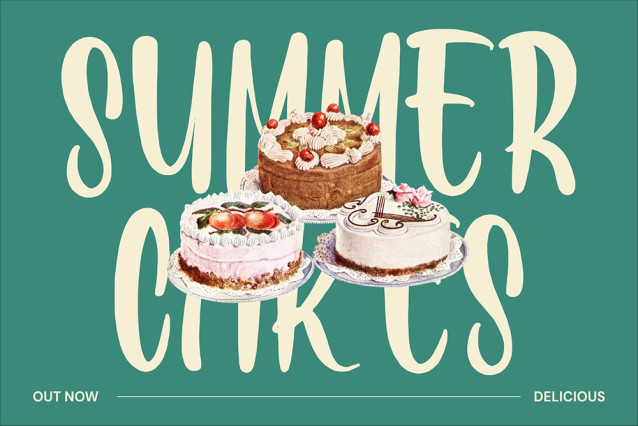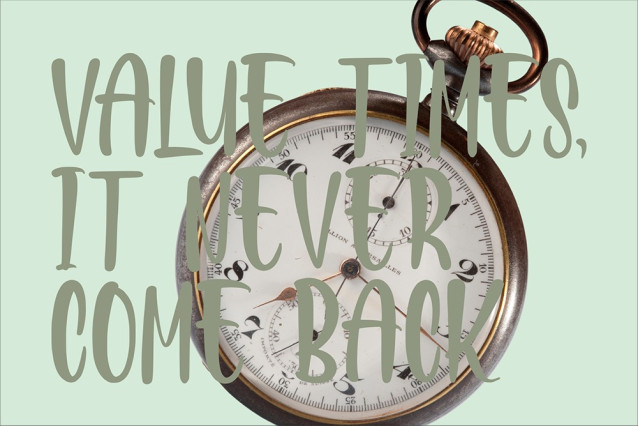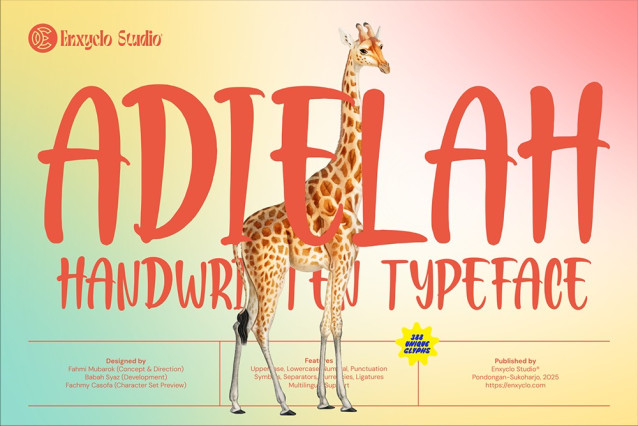
Adielah Handwriting Typeface
Adielah Handwriting Typeface, an expressive and playful handwritten typeface designed for versatility and creativity. Crafted by Enxyclo Studio, Adielah has a warm, natural look that instantly adds personality and uniqueness to your design projects.